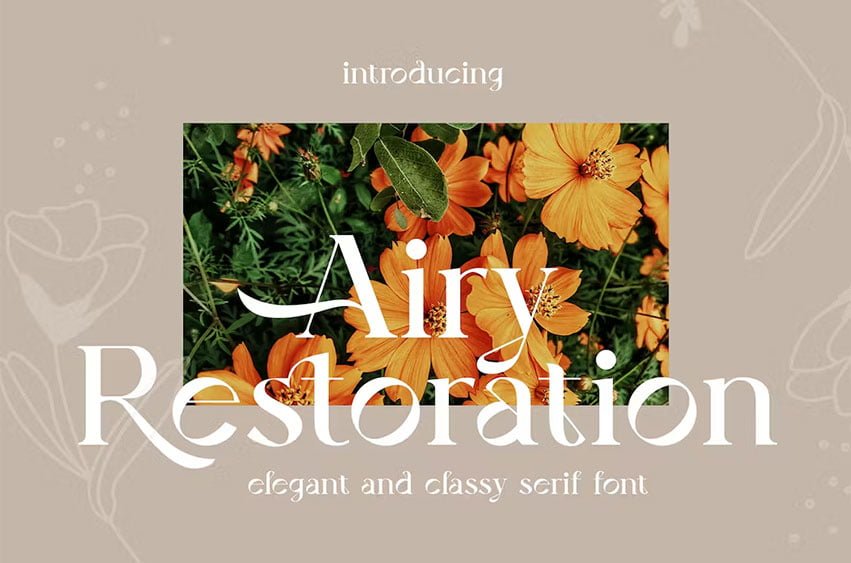
Airy Restoration Font is a typeface designed by Wildan Suprian Syah. Born in the year 2022, With spirit in new era pasca pandemi of covid 19. This is stylish modern serif font. Contains uppercase & lowercase characters, all punctuation & numerals. This font also have unique characters with alternate and ligature.